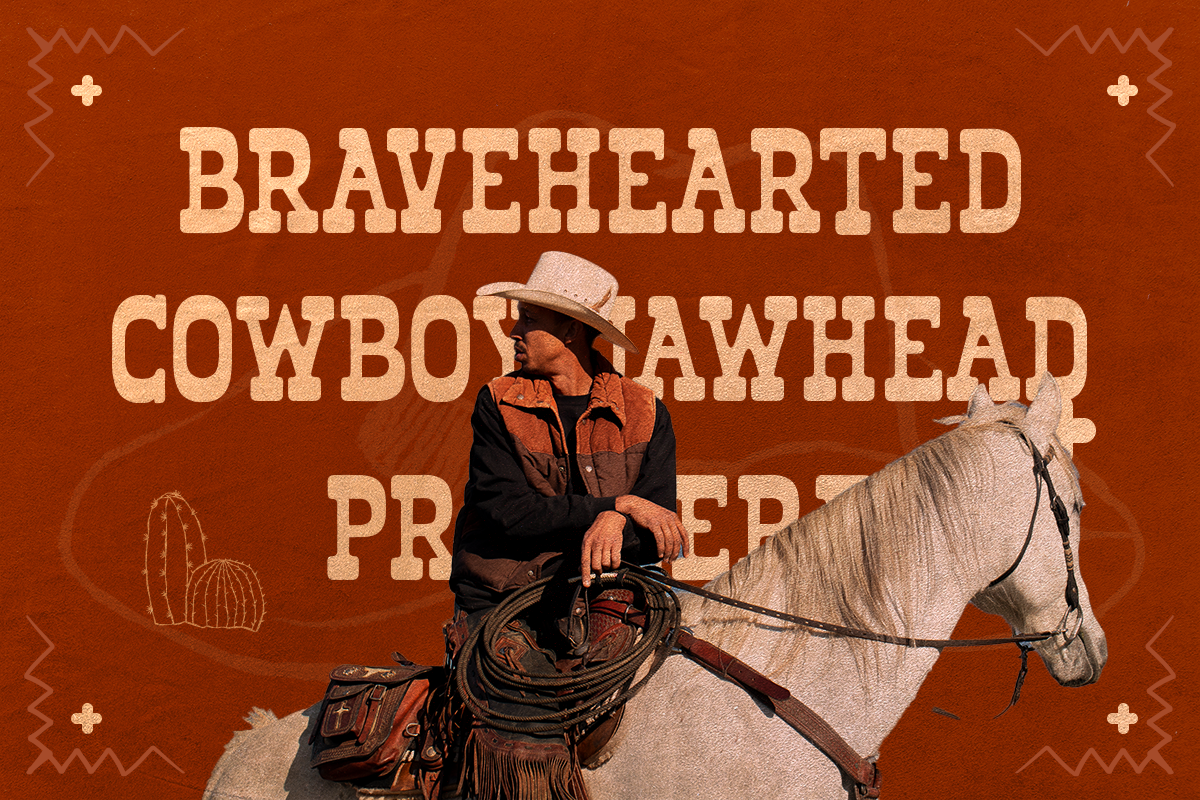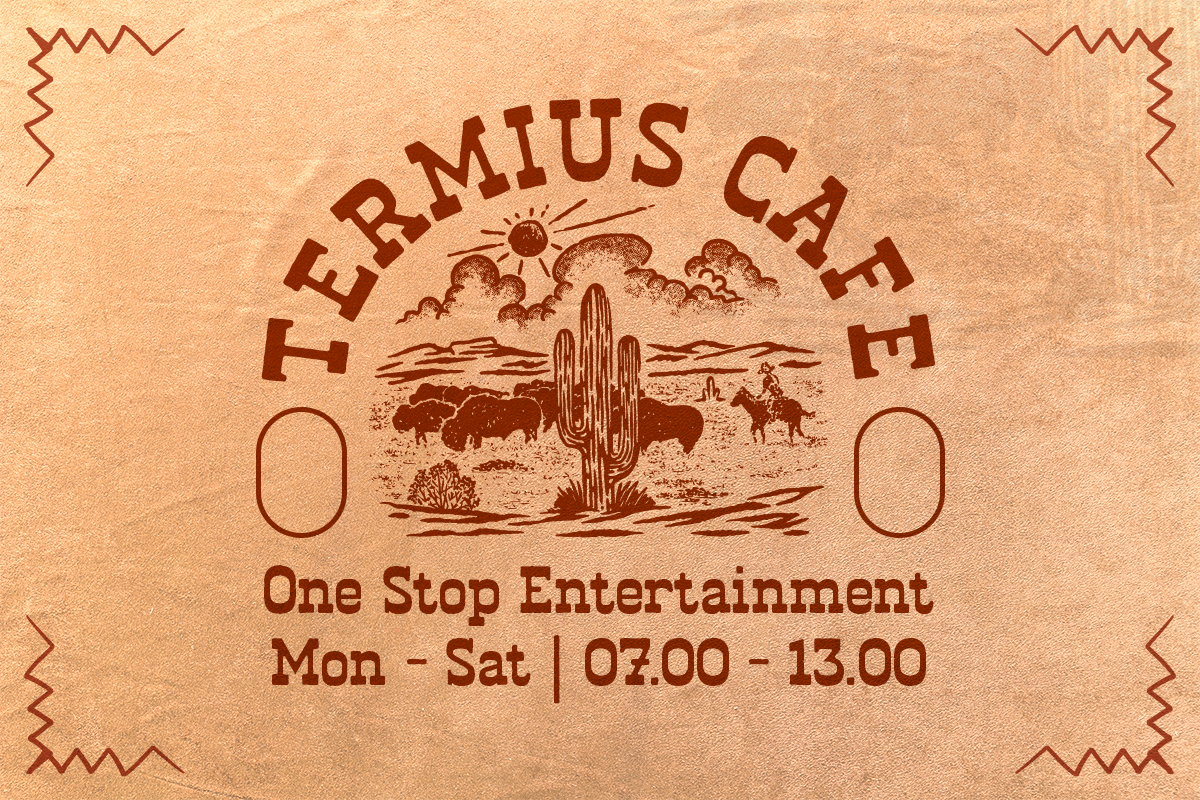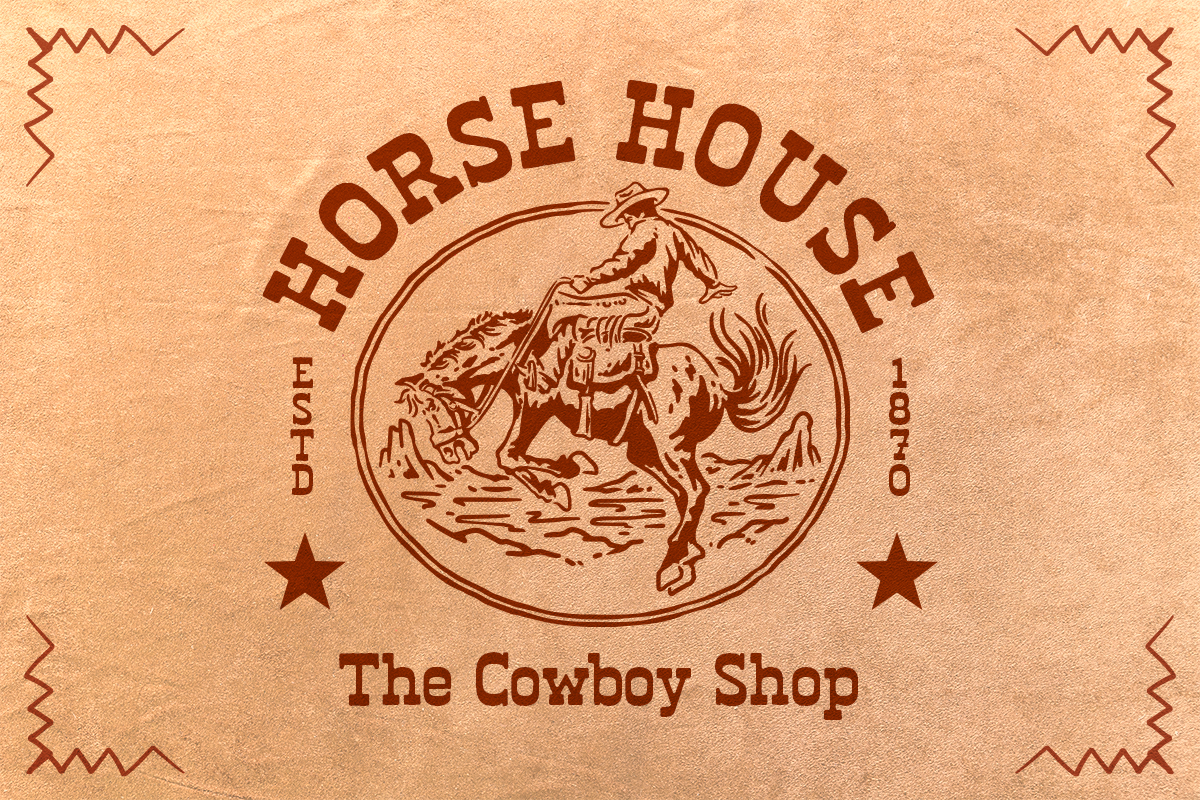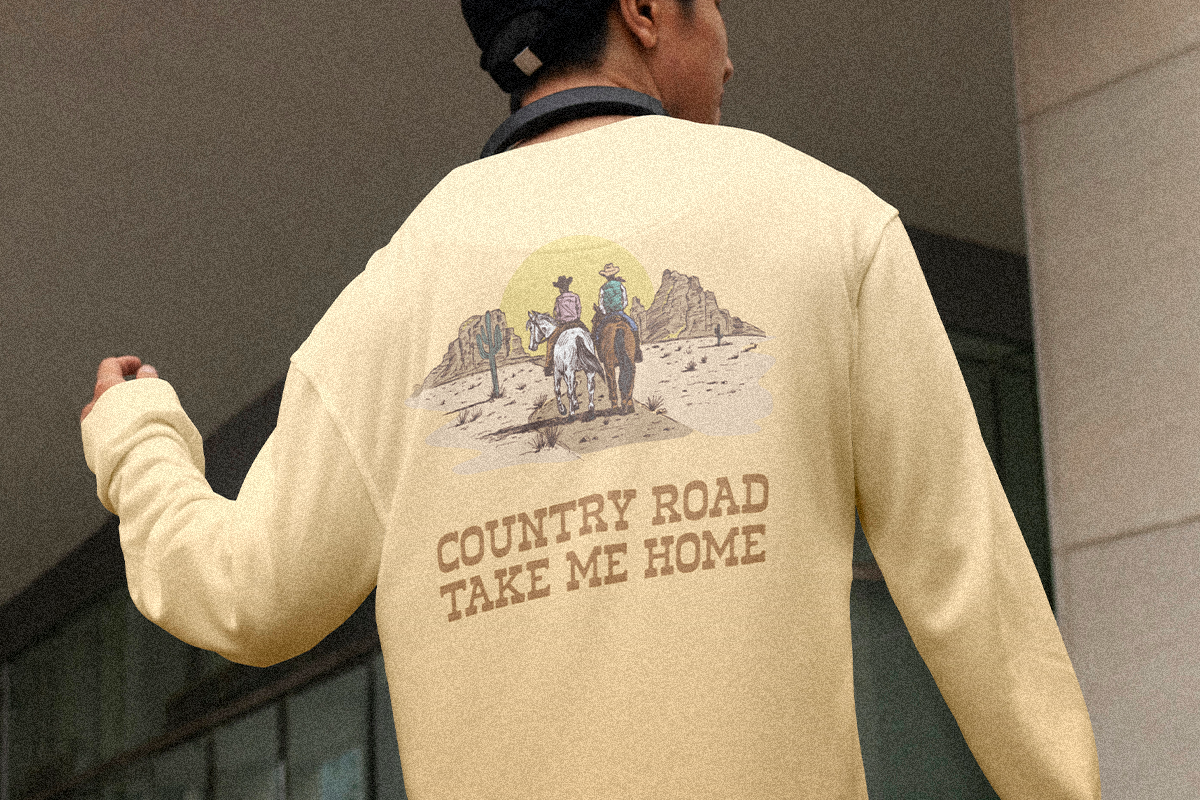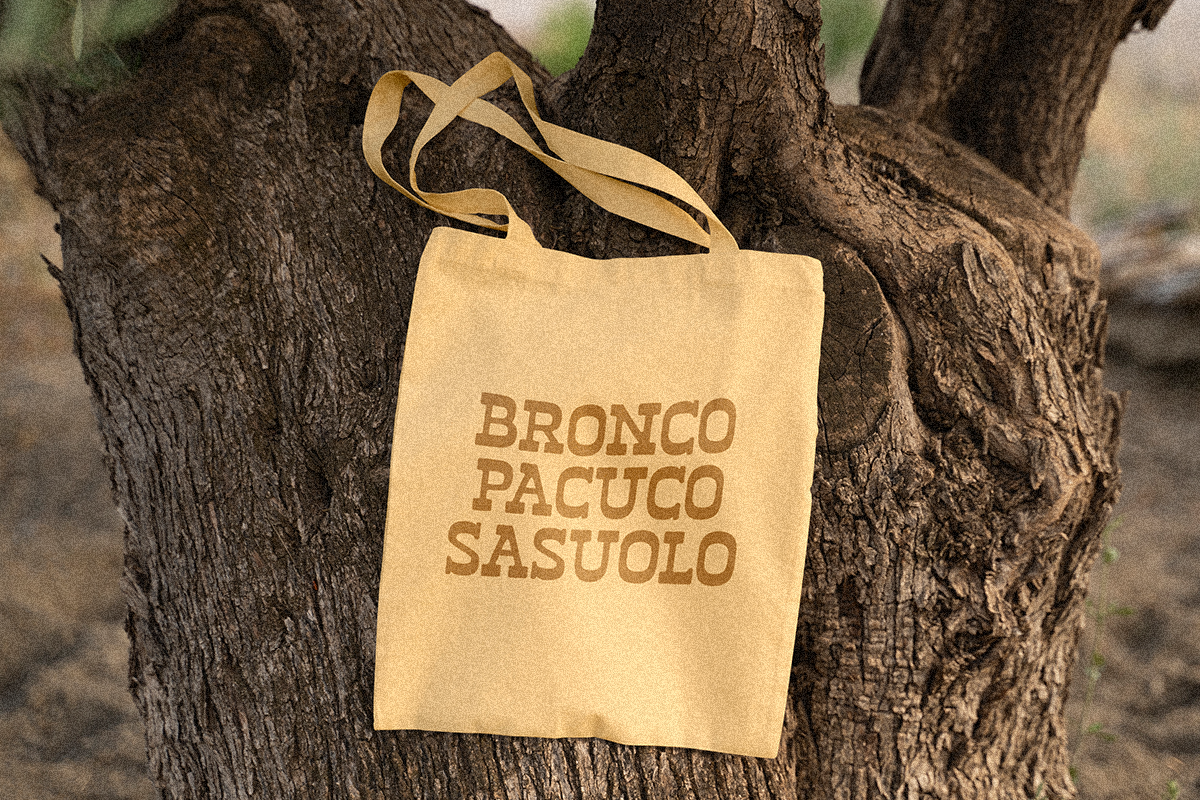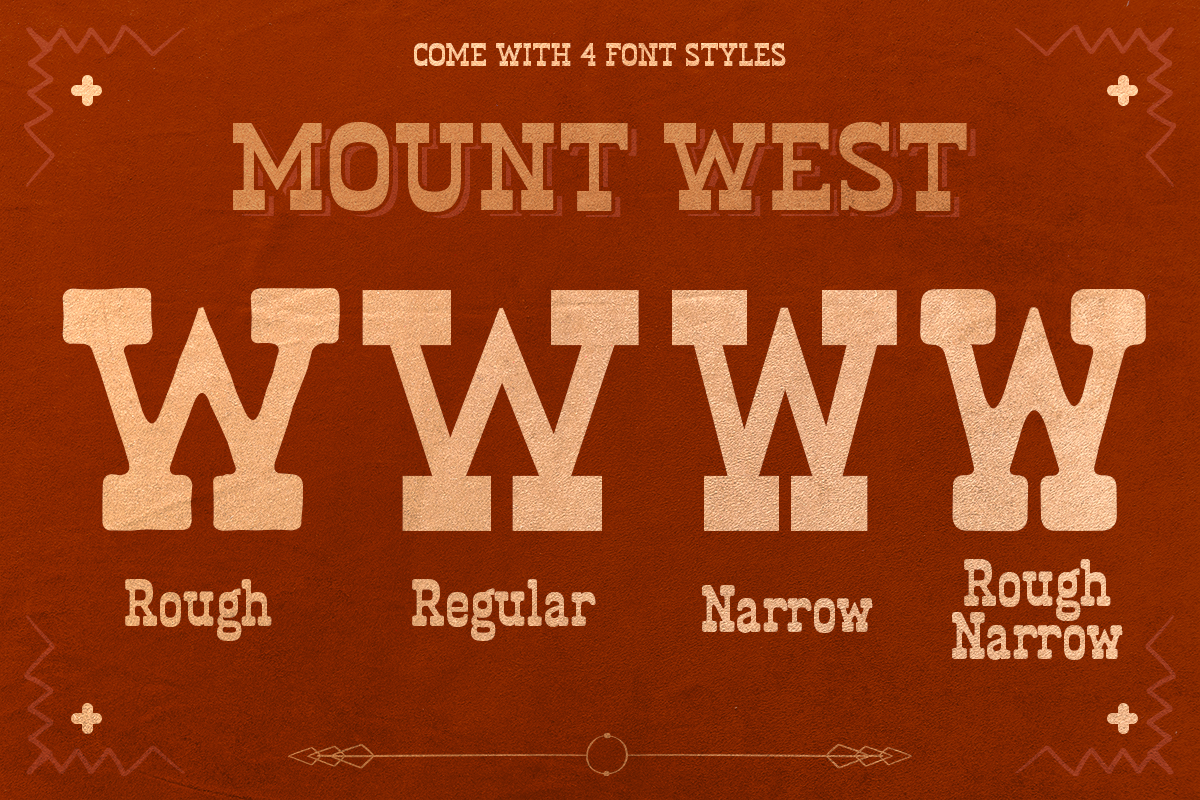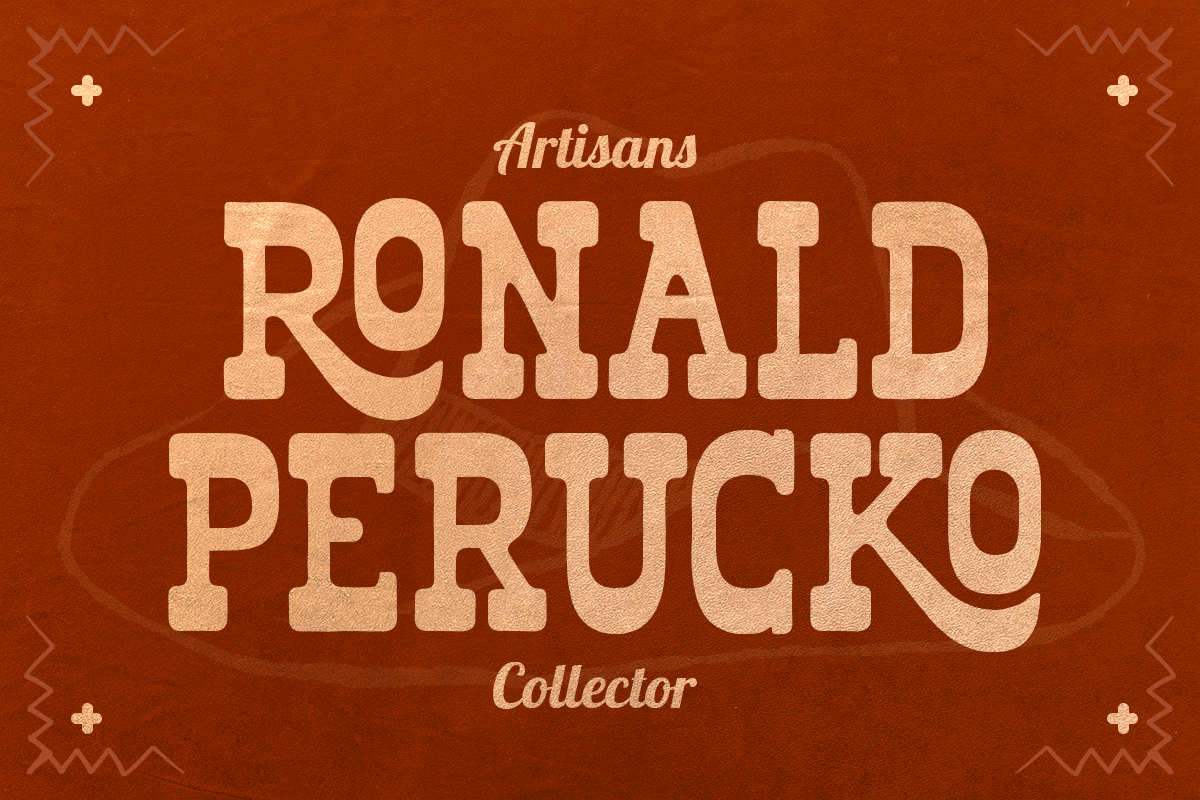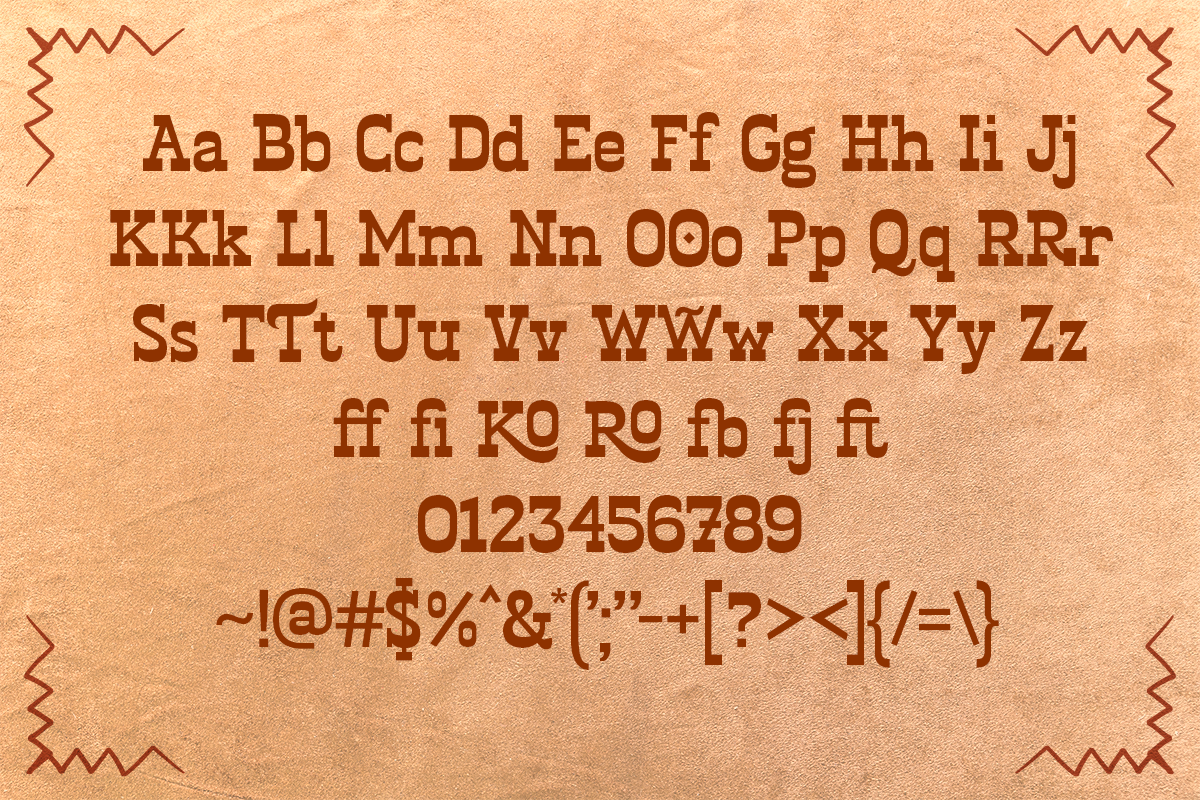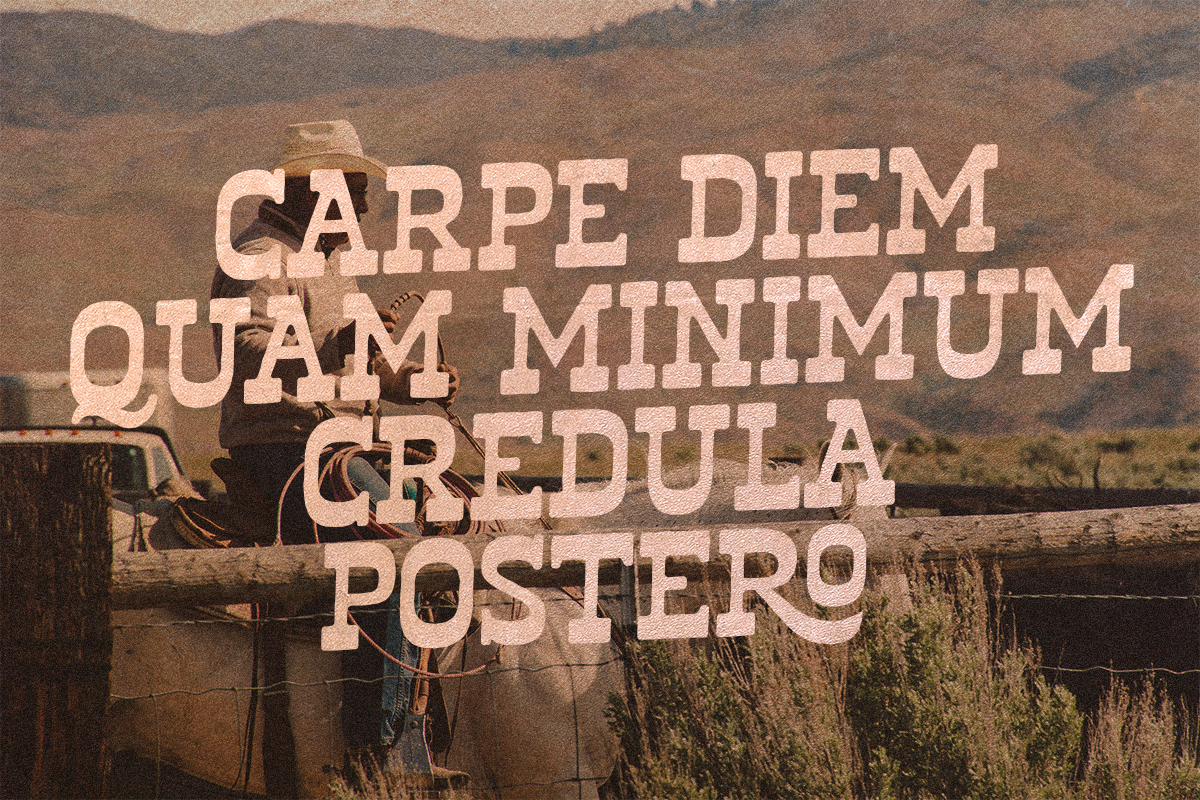
Mount West - Western Slab
Introducing Mount West, a bold and rugged display font that embodies the untamed spirit of the Wild West. Perfectly crafted by Viswell Studio, this typeface captures the raw charm of desert landscapes and cowboy culture. Featuring four versatile styles — Narrow, Regular, Rough, and Rough Narrow — Mount West brings a handcrafted, vintage texture that is perfect for logos, posters, branding, packaging, and more. Its strong visual presence and authentic frontier vibe make it the ideal choice for designers seeking a bold, rustic aesthetic.
Whether you're designing signage, apparel, or merchandise, Mount West delivers the timeless appeal of Americana with its handcrafted, textured design. Use it to add character and energy to your creative projects while standing out with a unique frontier-inspired touch. Download Mount West today and bring the adventurous spirit of the wild frontier to your designs!